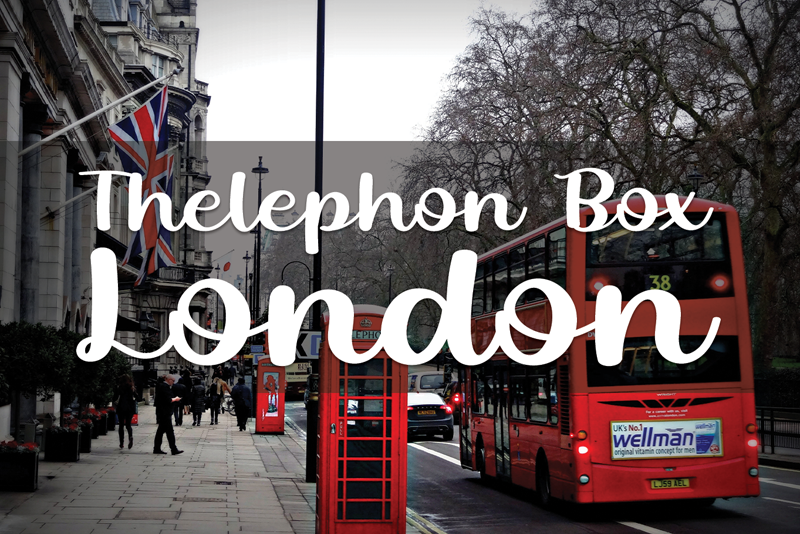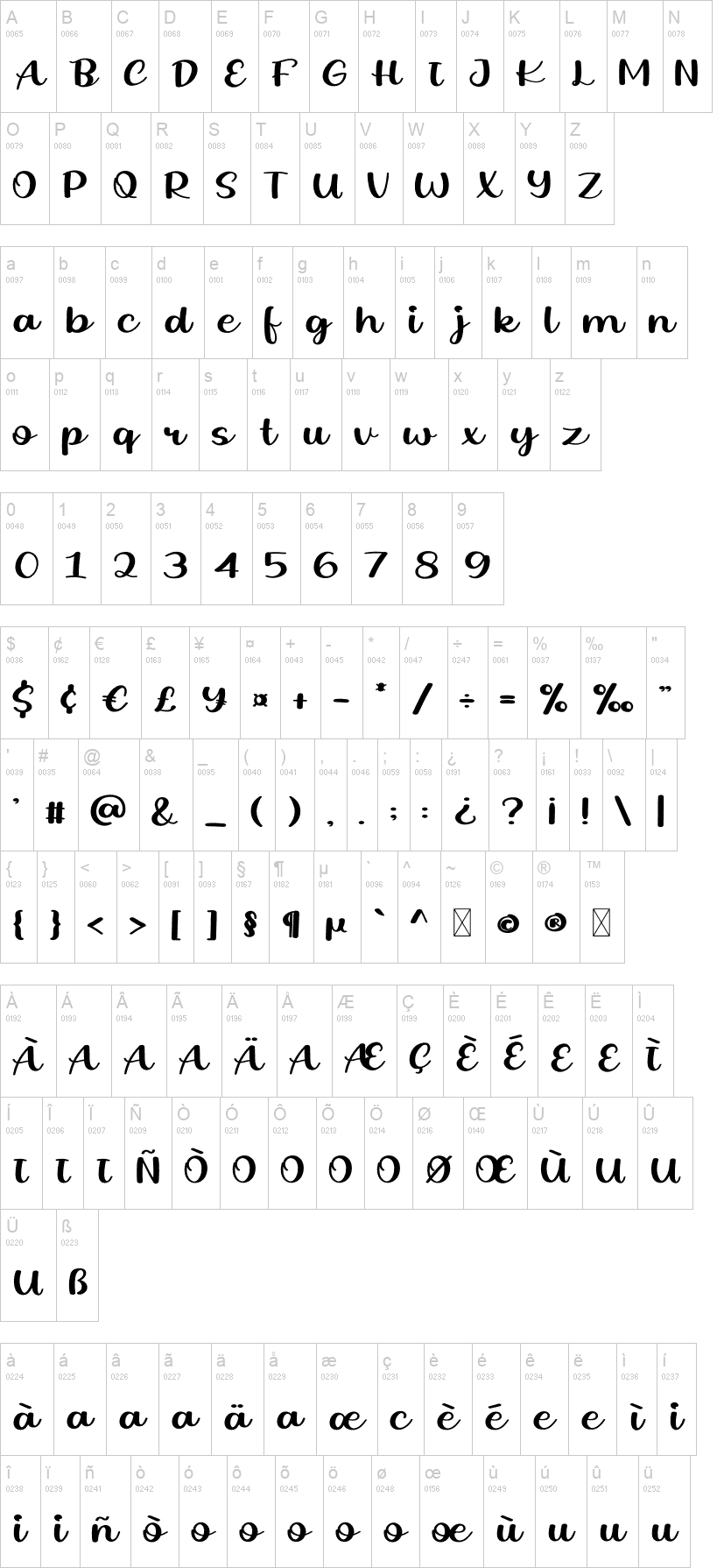
Note of the authorTelephone Box London is a cute and chic handwritten font. It embodies playfulness and authenticity and is the perfect choice for any project that requires a joyful touch.